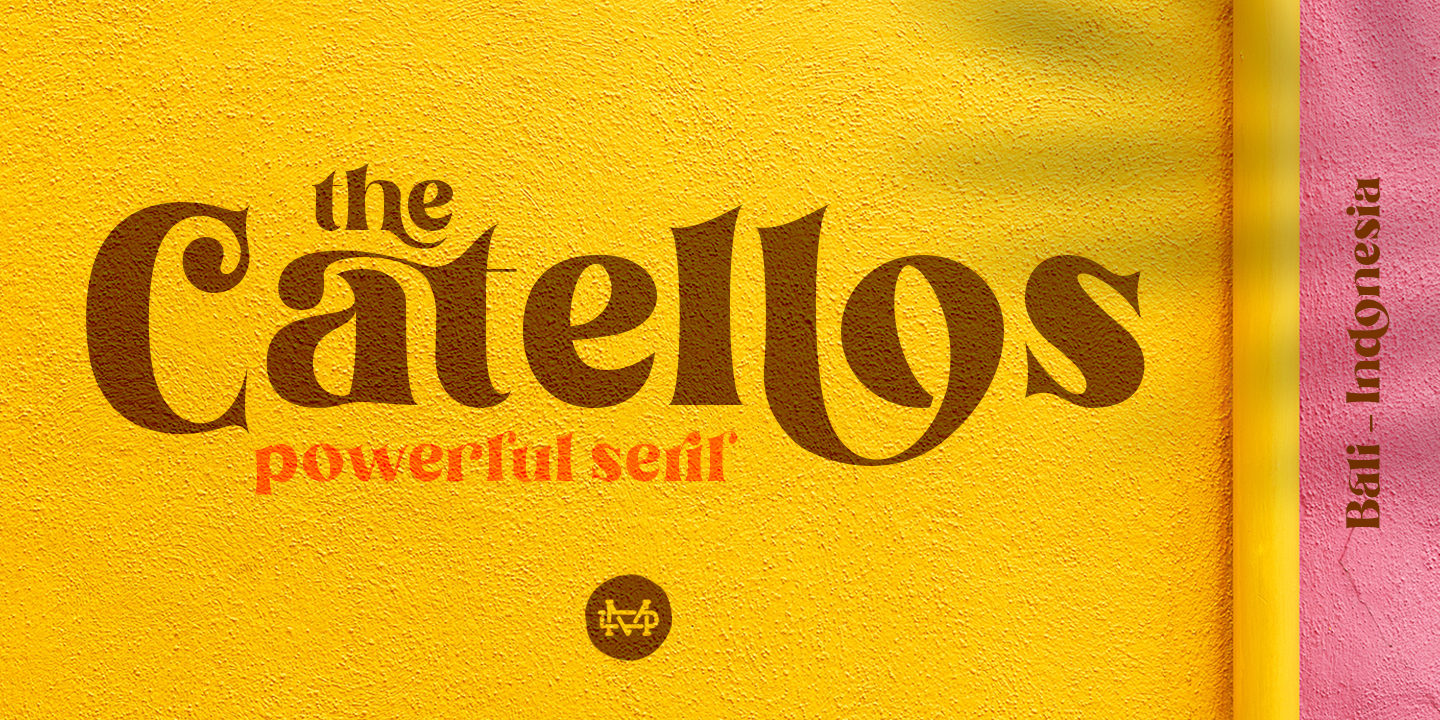
The Catellos Font is an excellent choice for designs that demand a rustic, handcrafted, and authentically charming aesthetic. Imagine it gracing the labels of artisanal goods, adding a genuine, earthy feel to branding for local farmers' markets, or bringing a distinctive character to cozy cafe signage. It's also perfectly suited for captivating event posters for community gatherings, unique packaging for handmade products, and any project where you want to evoke a sense of warmth, tradition, and natural appeal. With its distinctive, often textured or slightly irregular forms, the Catellos Font is ideal for projects that aim for visual impact and a memorable impression rooted in simplicity and honesty.
What makes the Catellos Font truly exciting is its ability to instantly convey a sense of bespoke quality and down-to-earth authenticity. It embodies the spirit of handmade craftsmanship, making your designs feel grounded, approachable, and truly unique. This font often features subtle imperfections, a weathered look, or a charmingly uneven baseline that adds depth and personality, setting it apart from more polished typefaces. It's perfect for establishing a brand identity that feels established, trustworthy, and creatively inspired, ensuring your message is not just seen, but appreciated for its authentic character. The Catellos Font Free Download offers a fantastic opportunity to infuse your projects with this distinctive spirit.
The Catellos Font family is typically designed to offer versatility while maintaining its signature rustic and authentic style. While specific family members can vary, you can often expect to find:
Catellos Regular
Catellos Bold (for added emphasis and powerful headlines)
Catellos Distressed (or Textured, for an authentic worn-out look)
Catellos Outline (for a unique display effect, mimicking cut-out or carved textures)
Catellos Script (if it includes a complementary flowing handwritten style for versatile pairing)
These variations provide flexibility for different design applications, allowing you to create engaging visual hierarchies and maintain a consistent, charming aesthetic across all your projects.